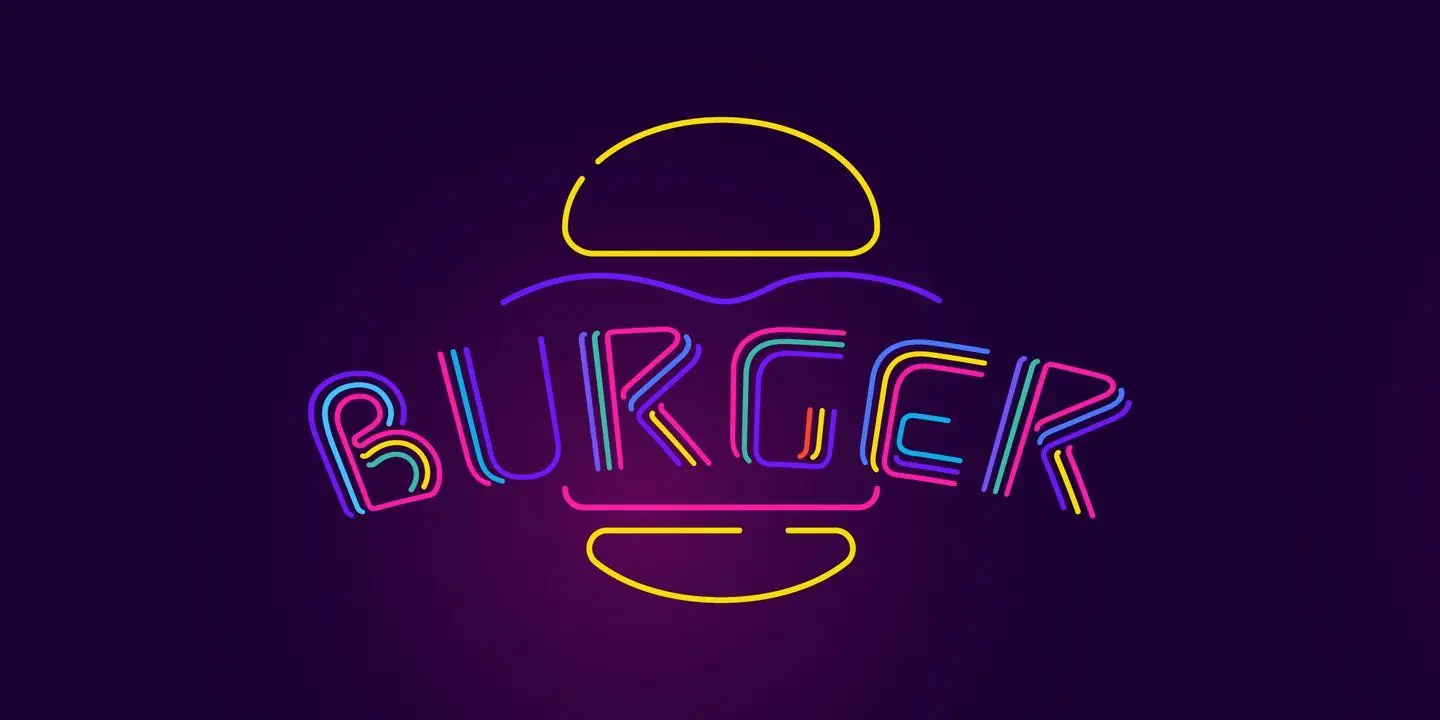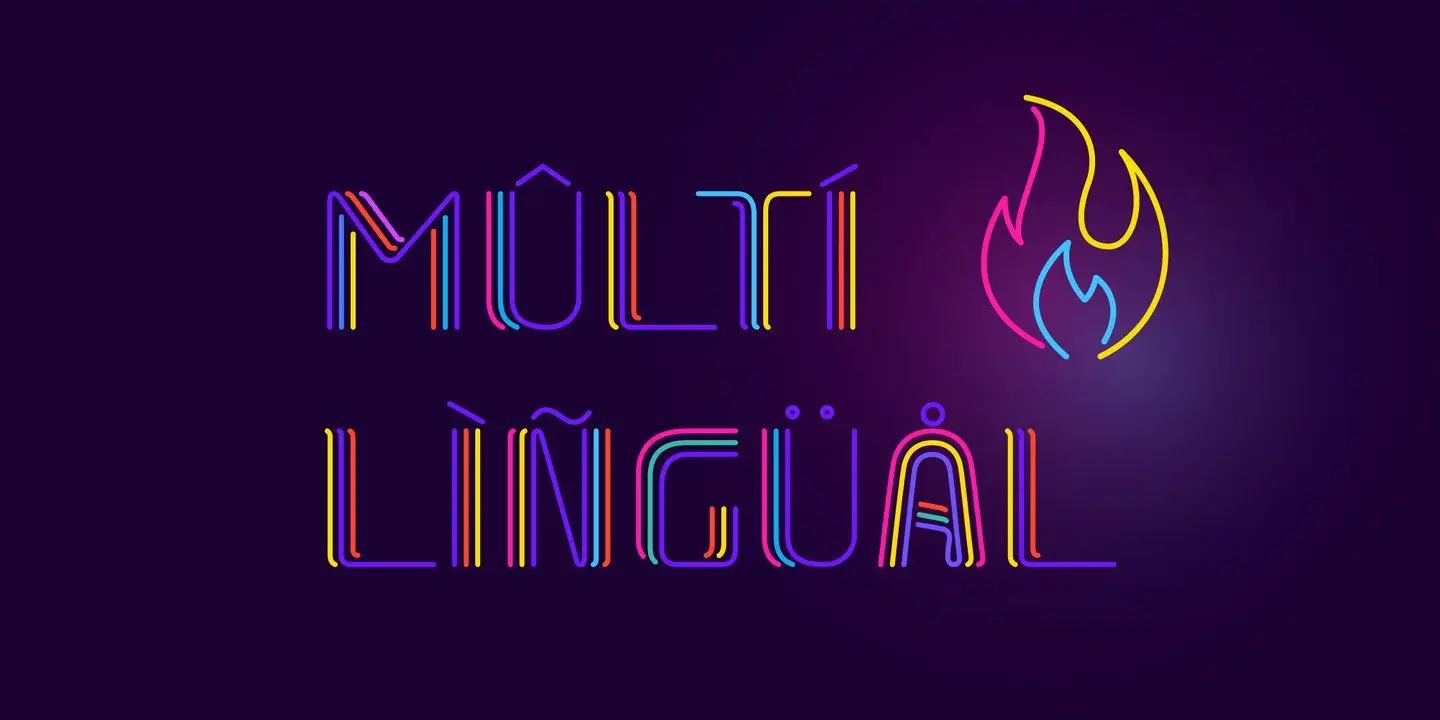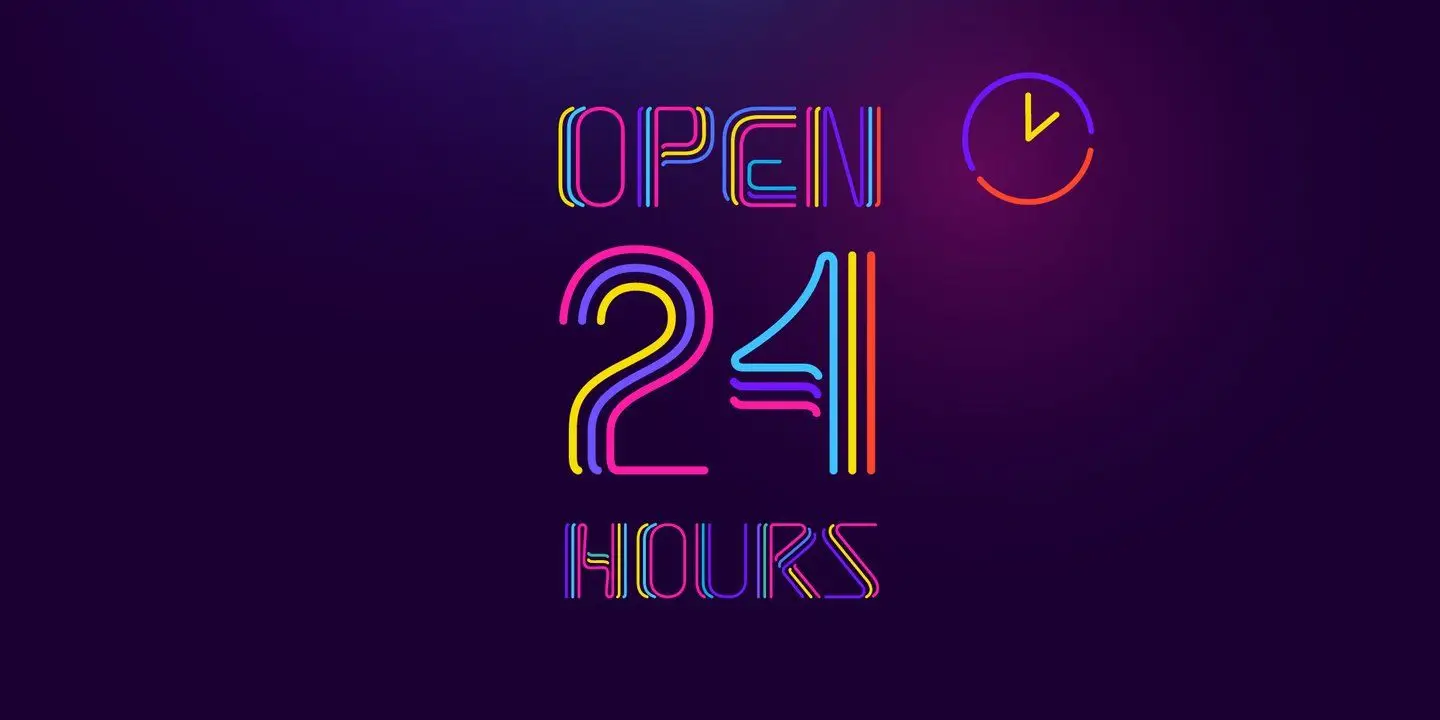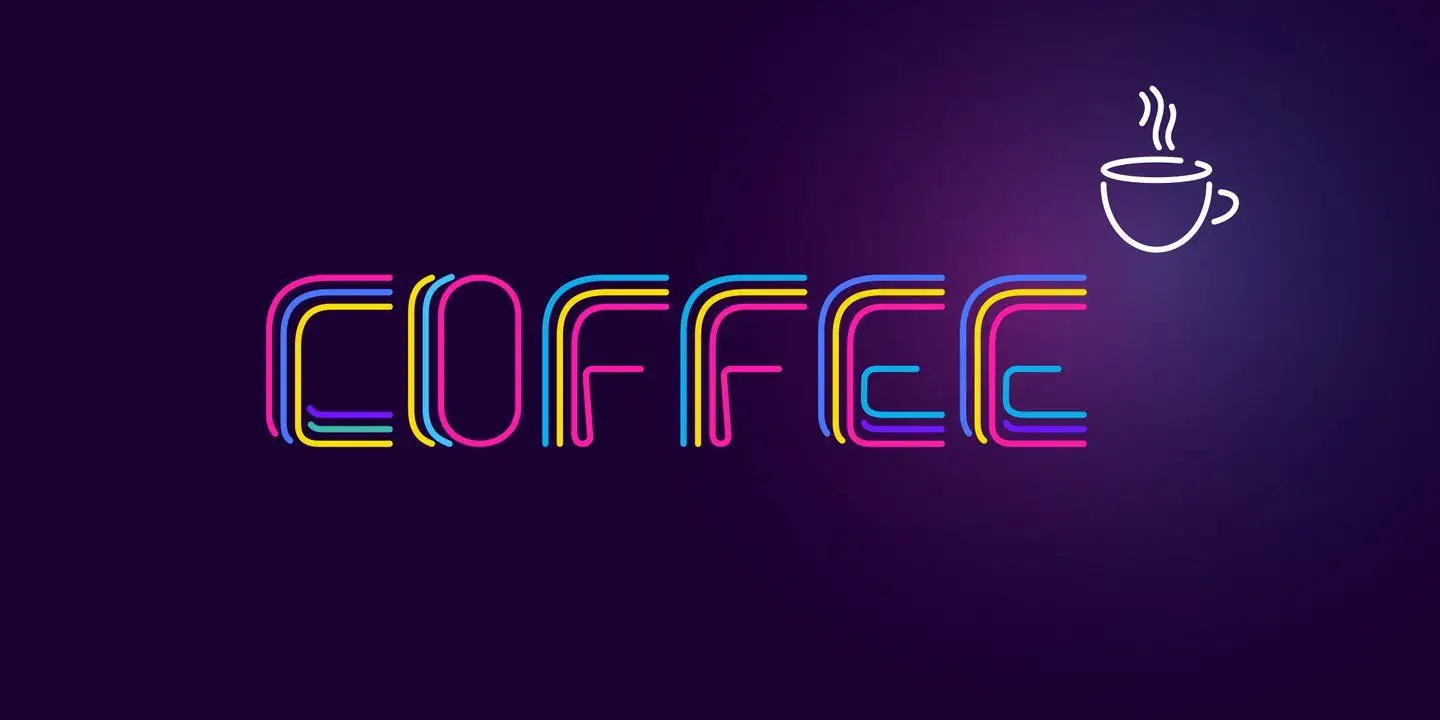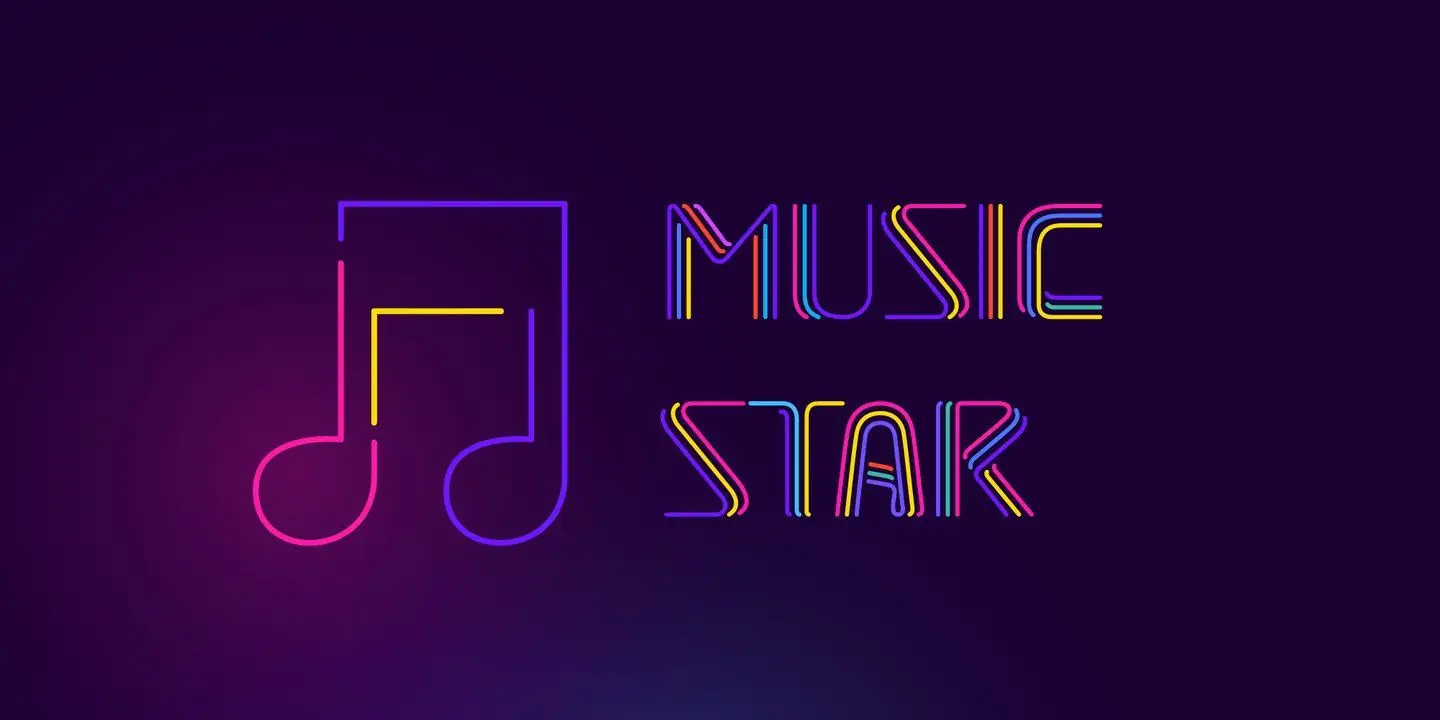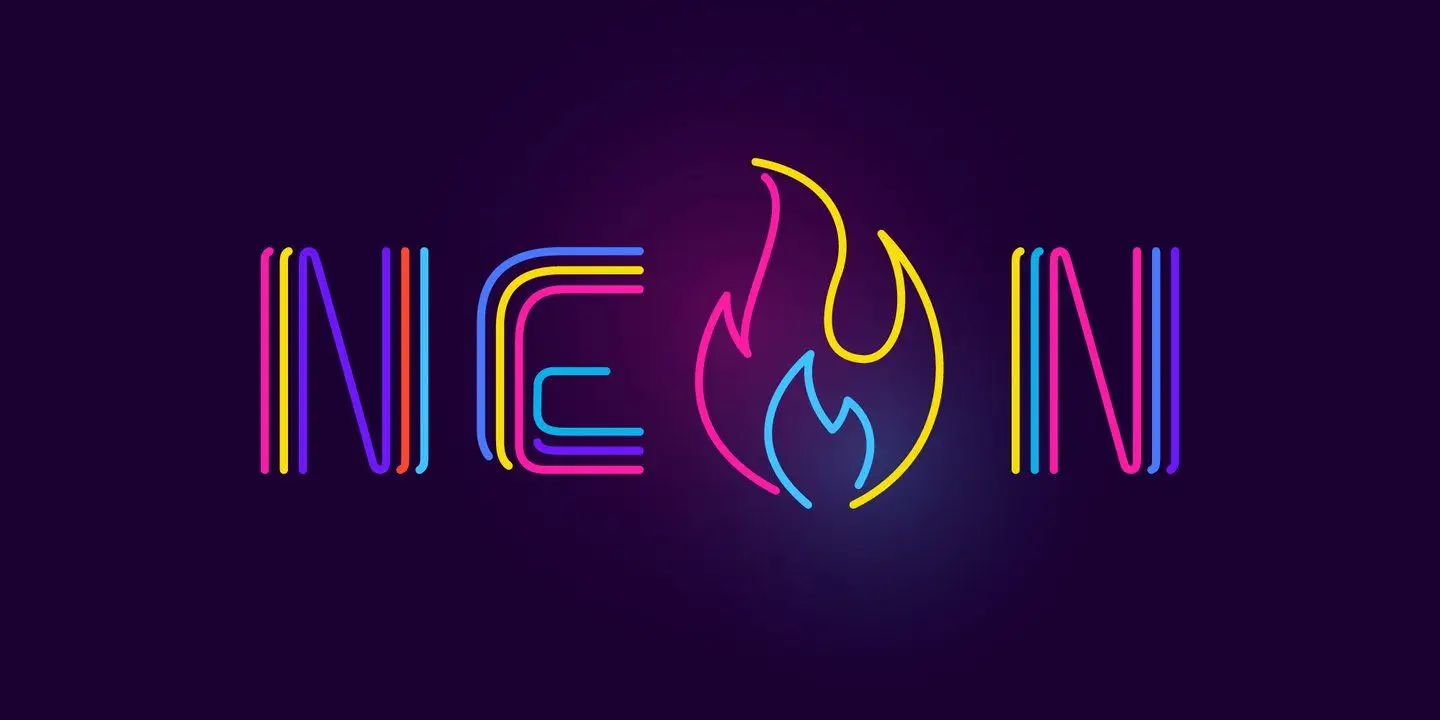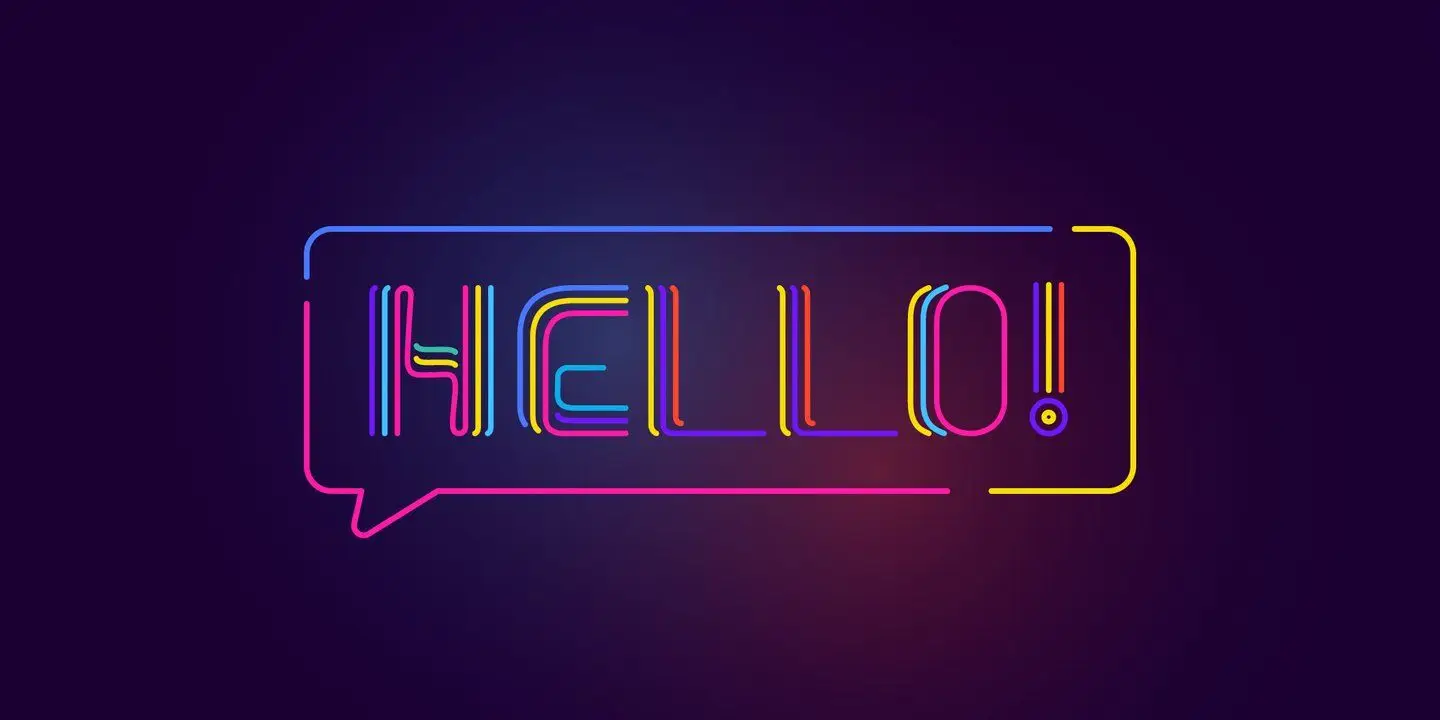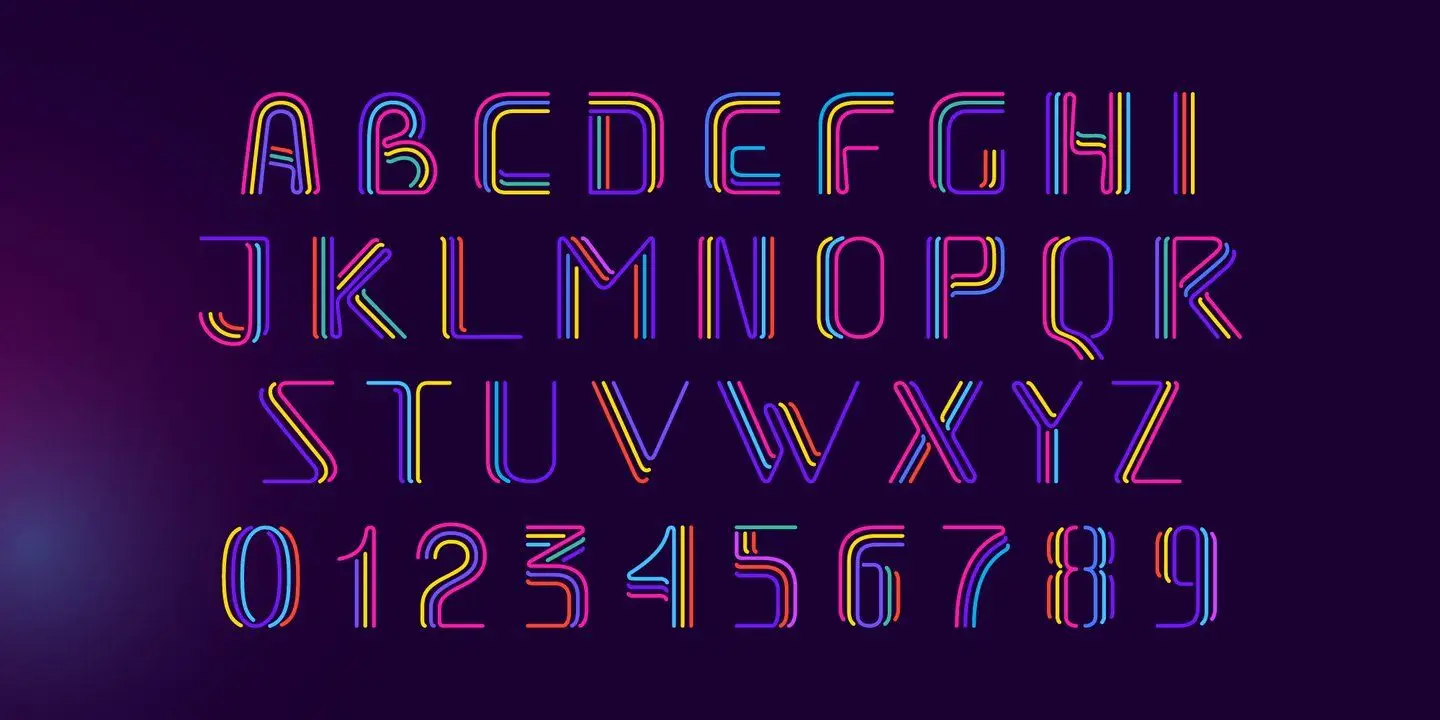
The Three Neon Lines color font brings a lively touch to your projects with its colorful neon-style lettering. Perfect for everything from festive designs to modern branding, this font is sure to make your text pop! 🎉
- Colorful and Regular Styles: Enjoy both vibrant colored and classic black & white styles to fit any project mood! 🎨
- Uppercase Letters: The font features uppercase letters (lowercase glyphs are the same), making it versatile for various design needs.
- Multilingual Support: Communicate with a global audience using this font that supports multiple languages! 🌍
- Includes Numbers and Symbols: Perfect for creating unique designs, this font set includes numbers and symbols to enhance your creativity.
This font is ideal for graphic designers, branding specialists, and anyone looking to add a vibrant touch to their projects! Whether you’re working on a nightclub flyer, a carnival poster, or a modern logo, this font will shine bright! 🌈